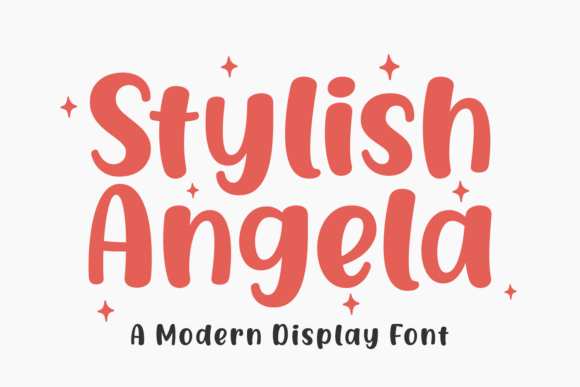
Stylish Angela Font: The Epitome of Loveliness in Typography
Introducing the captivating “Stylish Angela Font”, an enchanting blend of joy, gentleness, and charisma. This whisper-soft font radiates an irresistible appeal that will ensnare your affection. Exhibiting a playful and charming aesthetic, the Stylish Angela Font is the epitome of loveliness. It is created to infuse a touch of magic and warmth into your creative endeavors.
Key Features of Stylish Angela Font
- Playful and Charming Aesthetic: The Stylish Angela Font boasts a unique and captivating design that is sure to grab attention. Its playful and charming aesthetic makes it perfect for projects that require a touch of whimsy and fun.
- Whisper-Soft Appeal: This font’s gentle and soft appearance makes it ideal for creating visually appealing content that is easy on the eyes.
- Magical and Warm: The Stylish Angela Font is designed to add a touch of magic and warmth to your creative projects, making it perfect for designs that require a personal touch.
- Versatile: This font is versatile and can be used for a wide range of projects, from digital content to print materials.
The Art of Typography: Stylish Angela Font
Typography is an essential aspect of design, and the Stylish Angela Font is a testament to the power of typography in creating visually appealing content. The font’s unique design and charming aesthetic make it a standout in the world of typography.
The Stylish Angela Font is a masterclass in typography, with each letter carefully crafted to create a beautiful and cohesive look. The font’s gentle curves and playful lines make it a joy to use, and its versatility ensures that it can be used in a wide range of projects.
Uses of Stylish Angela Font
The Stylish Angela Font is a versatile font that can be used in a wide range of projects, including:
- Digital Content: Use the Stylish Angela Font to create visually appealing digital content, such as blog posts, social media graphics, and email newsletters.
- Print Materials: This font is perfect for print materials, such as brochures, flyers, and posters.
- Branding: The Stylish Angela Font can be used to create a unique and recognizable brand identity.
- Packaging: Use this font to create eye-catching packaging that stands out on store shelves.
Benefits of Using Stylish Angela Font
The Stylish Angela Font offers a range of benefits, including:
- Unique and Recognizable: This font’s unique design ensures that your content stands out and is easily recognizable.
- Emotional Connection: The Stylish Angela Font’s playful and charming aesthetic helps to create an emotional connection with your audience.
- Versatile: This font can be used in a wide range of projects, making it a valuable addition to your design toolkit.
- Easy to Read: The Stylish Angela Font is easy to read, making it perfect for creating content that needs to be quickly and easily understood.
Tips for Using Stylish Angela Font
Here are some tips for using the Stylish Angela Font:
- Use it Sparingly: Use the Stylish Angela Font sparingly to create emphasis and add visual interest to your content.
- Pair it with Other Fonts: Pair the Stylish Angela Font with other fonts to create a unique and visually appealing look.
- Experiment with Colors: Experiment with different colors to find the perfect combination that complements the Stylish Angela Font.
- Keep it Consistent: Use the Stylish Angela Font consistently across all your design projects to create a recognizable brand identity.
The Stylish Angela Font is a captivating and enchanting font that is sure to add a touch of magic and warmth to your creative projects. Its playful and charming aesthetic makes it perfect for a wide range of projects, from digital content to print materials.
With its unique design, versatility, and emotional appeal, the Stylish Angela Font is a valuable addition to any design toolkit. Whether you’re a designer, marketer, or entrepreneur, this font is sure to help you create visually appealing content that resonates with your audience.